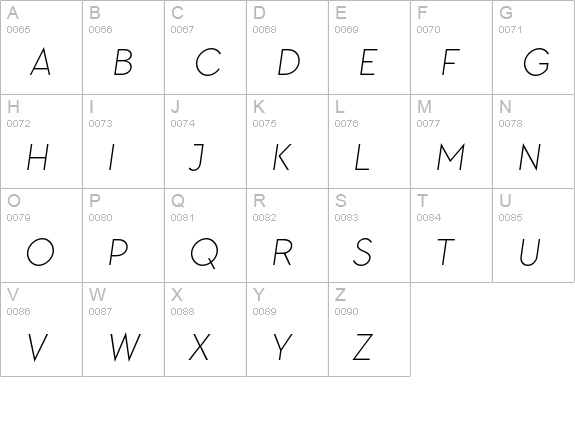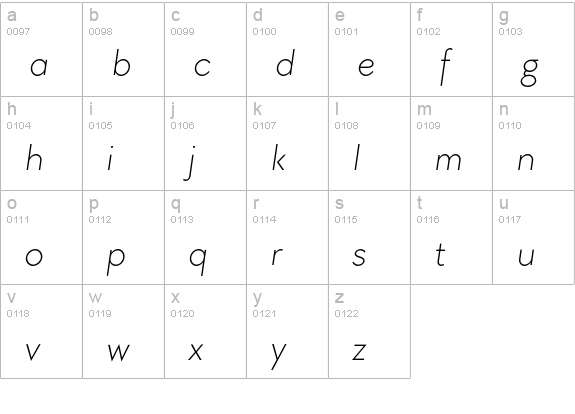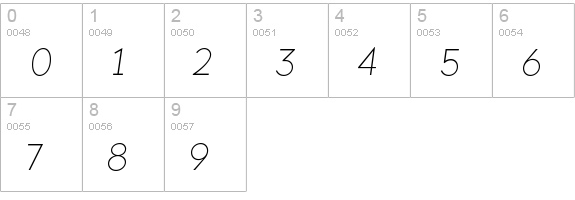
TT Chocolates Light Italic Font Details
TT Chocolates Light Italic is a refined, elegant, italic variant in the TT typeface family \xE2\x80\x94 well suited to elegant body text, refined sub-headings, and luxury branding.
Introducing TT Chocolates Light Italic font - a sleek and elegant typeface that exudes sophistication and charm. Its delicate italic style adds a touch of flair to any design, making it perfect for projects that require a refined and modern look. The TT Chocolates Light Italic font strikes the perfect balance between classic and contemporary aesthetics, making it versatile and suitable for a wide range of applications. What's more, this exquisite font is available for free download at FontsMarket.com, allowing designers and creatives to access its beauty and functionality without any cost. Embrace the timeless elegance of TT Chocolates Light Italic font in your projects and elevate your designs to new heights. Experience the sophistication and grace of this stunning typeface today!